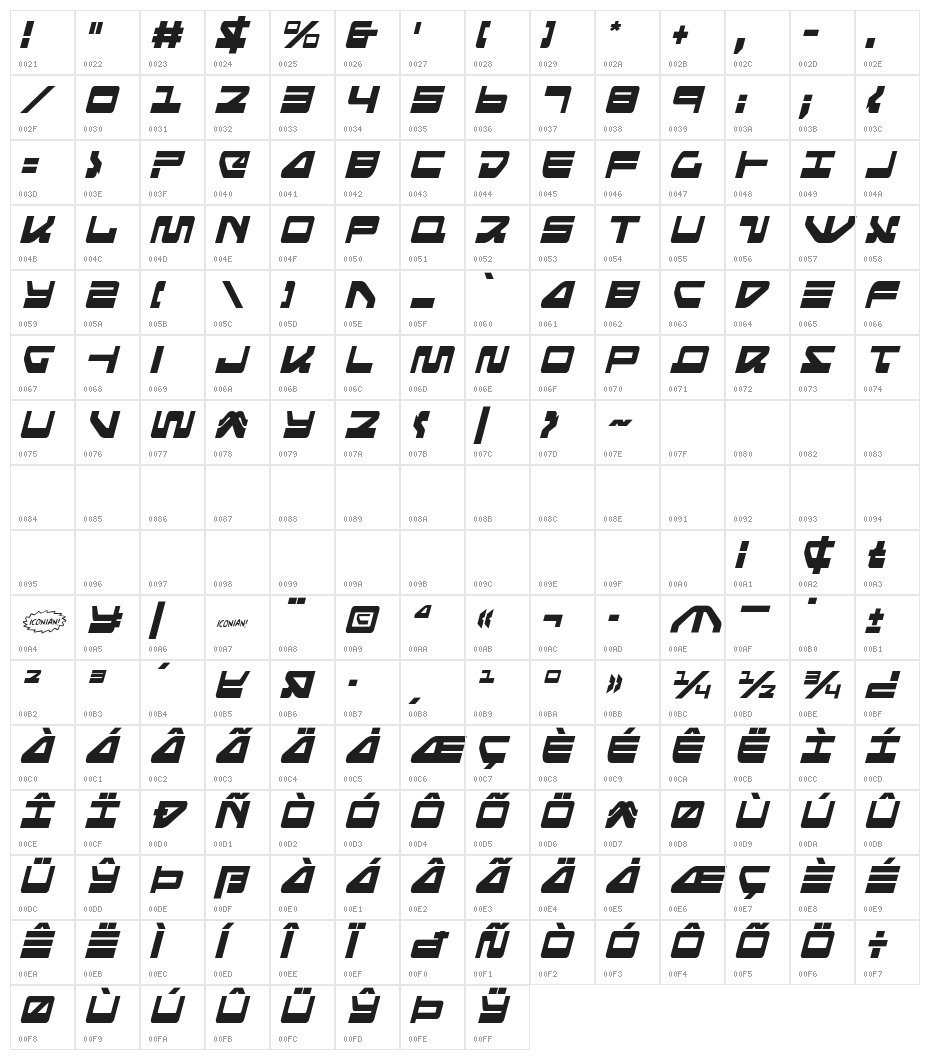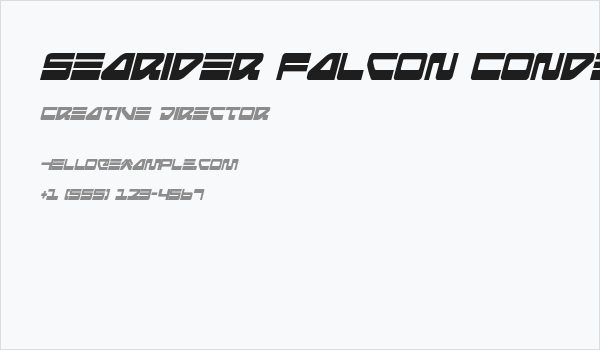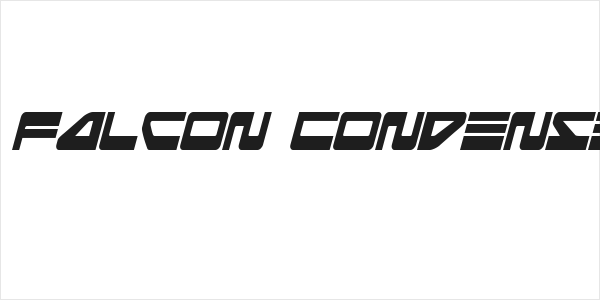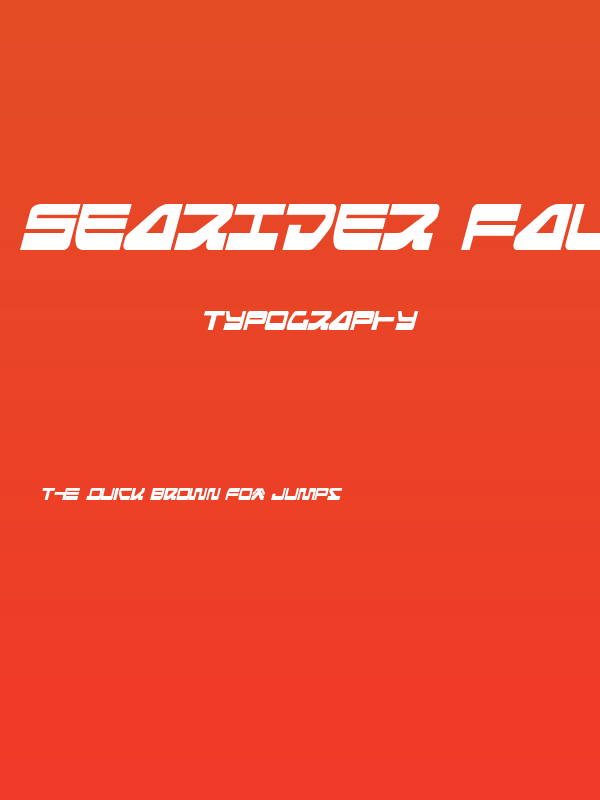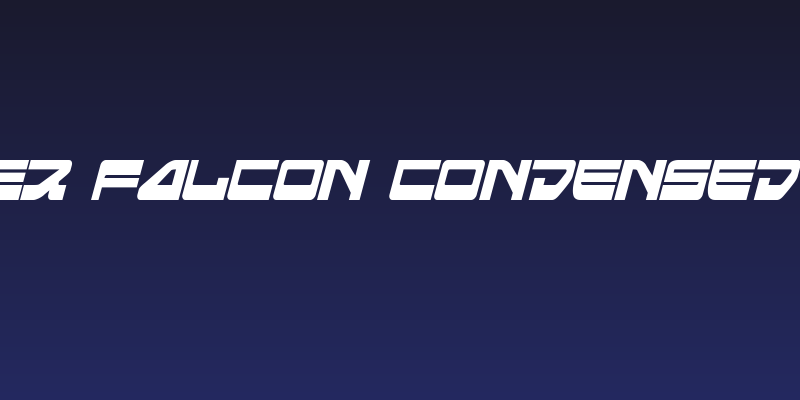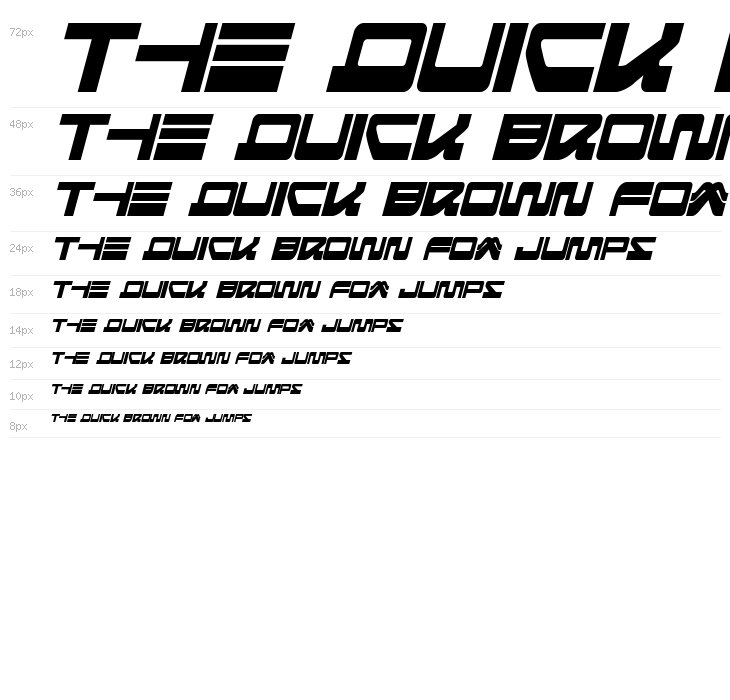
Searider Falcon Condensed Italic Font
Searider Falcon Condensed Italic Description
This font features a bold and dynamic style with a futuristic and angular design. The characters are condensed and italicized, giving a sense of motion and speed. The sharp edges and geometric shapes create a striking visual impact, making it ideal for attention-grabbing designs. The uppercase and lowercase letters maintain a consistent style, while the numbers and special characters complement the overall aesthetic. The font's unique appearance makes it suitable for modern and edgy projects.
| Proposed Projects | Ideal for sports branding, automotive designs, sci-fi themed projects, and dynamic posters. |